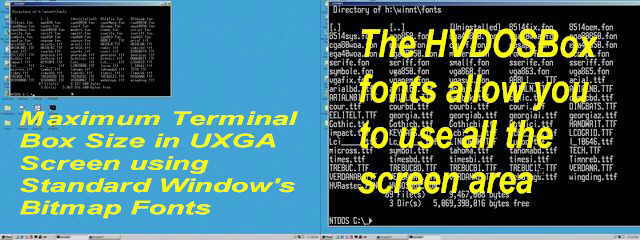
(0 Votes)HVDOSBox is a Windows monospaced raster screen font. It is for anyone who uses Windows' Console mode or runs MS-DOS applications in a Windows Box. The HVDOSBox fonts provide greater text legibility and many more point sizes than the fonts supplied with Windows. The large range of font sizes allows a console window to be scaled to the match the size of the monitor at any resolution. The fontface is based on ProCon's Hi-Visibility HVFont which produces much stronger character glyphs and more legible punctuation characters. It uses a modified OEM Codepage 437 symbol set. Normally blank characters - like the binary NUL and ASCII 255 - are visible, and the space character can be shown as a grid to assist programmers and screen designers with code layout and design.